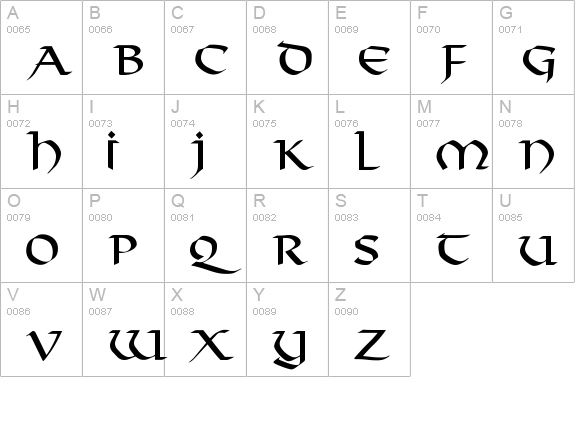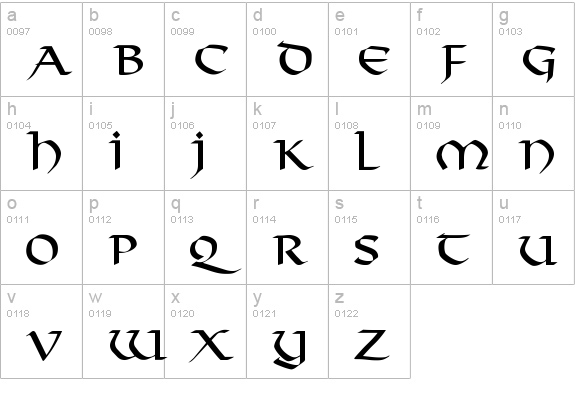
ThorFont Font Details
Introducing ThorFont, a captivating and versatile font that is sure to add a touch of power and elegance to any design project. With its bold and commanding presence, ThorFont is designed to make a statement and leave a lasting impression. This remarkable font is meticulously crafted with attention to detail, resulting in a flawless combination of strength and beauty. Its clean and sharp edges give it a modern appeal, while the subtle curves add a touch of sophistication. ThorFont is truly a standout choice for any creative endeavor. One of the most remarkable aspects of ThorFont is that it is available for free. Yes, you heard that right! This incredible font is freely available to download at FontsMarket.com. Whether you're a professional designer or a hobbyist looking to add a touch of elegance to your personal projects, ThorFont is the perfect choice. With its extensive character set, ThorFont offers versatility and flexibility, allowing you to experiment and create unique designs. From logos and branding to posters and invitations, this font is capable of elevating any design concept to new heights. But don't let its commanding presence fool you – ThorFont is also incredibly easy to work with. Its well-defined letterforms ensure legibility at any size, making it suitable for both print and digital projects. Whether you're using it for headlines, body text, or captions, ThorFont will deliver exceptional results every time. So why wait? Unleash the power of ThorFont in your designs and experience the impact it can make. Download this exceptional font for free at FontsMarket.com and let your creativity soar. With ThorFont by your side, your designs will truly stand out from the crowd and leave a lasting impression on anyone who lays eyes on them.